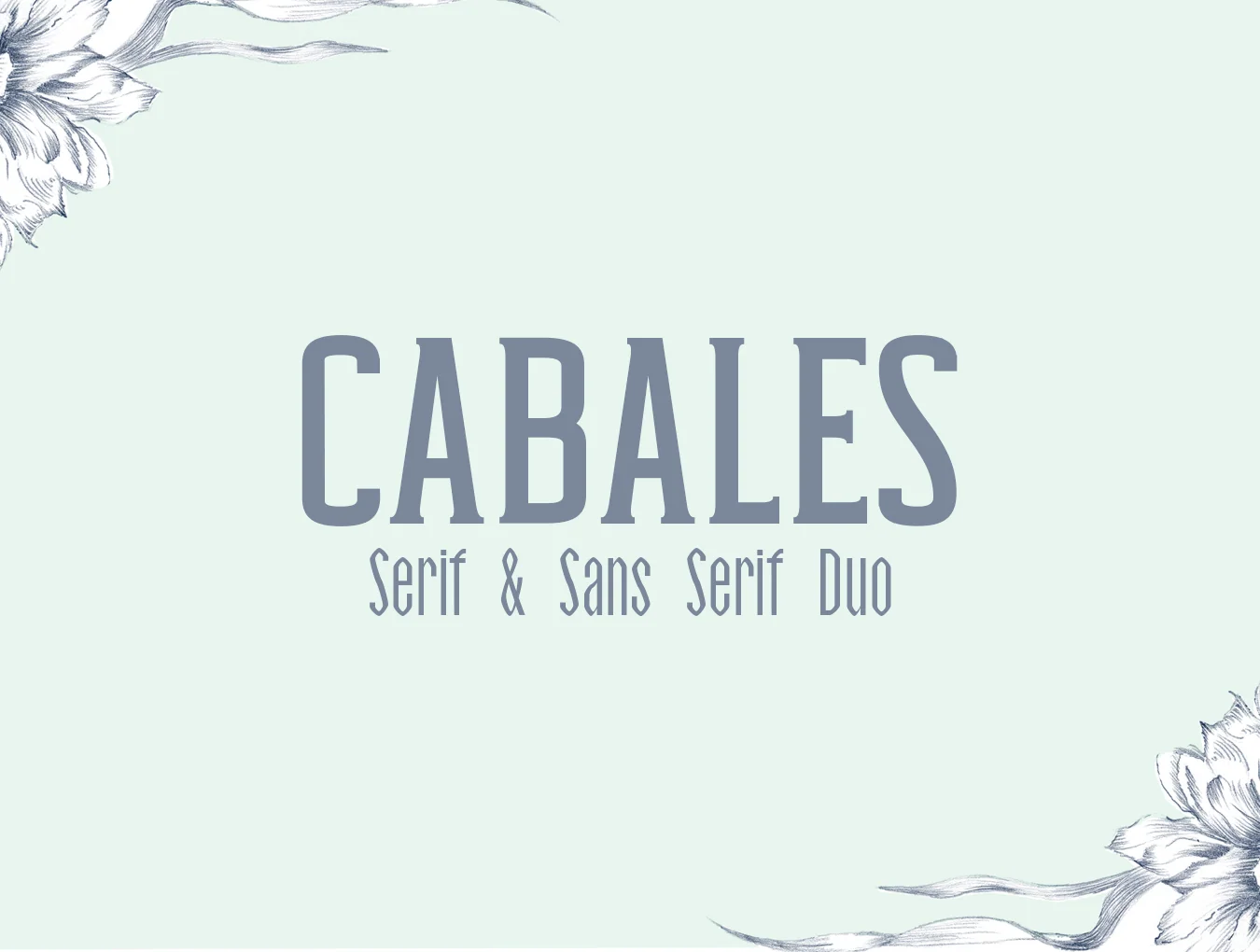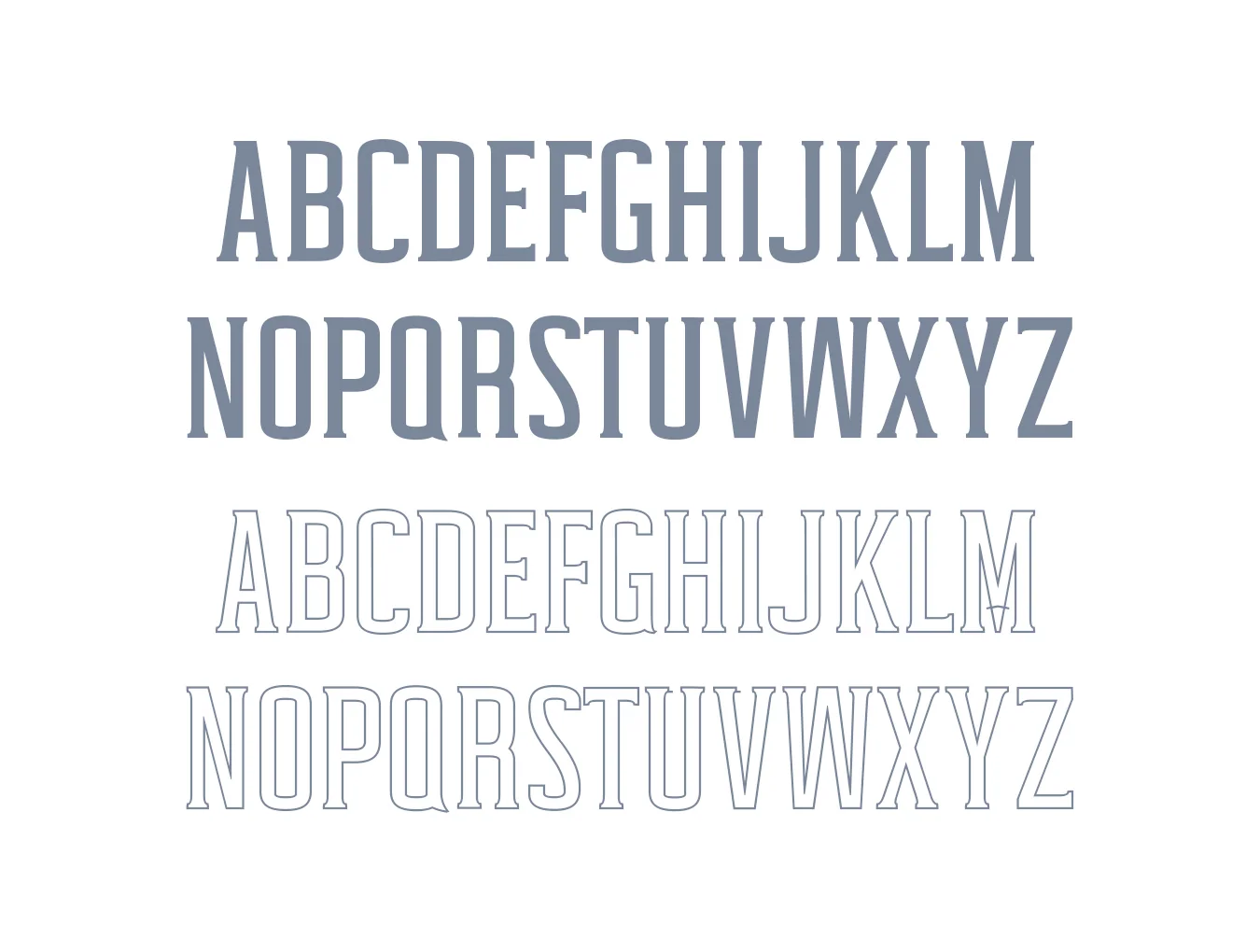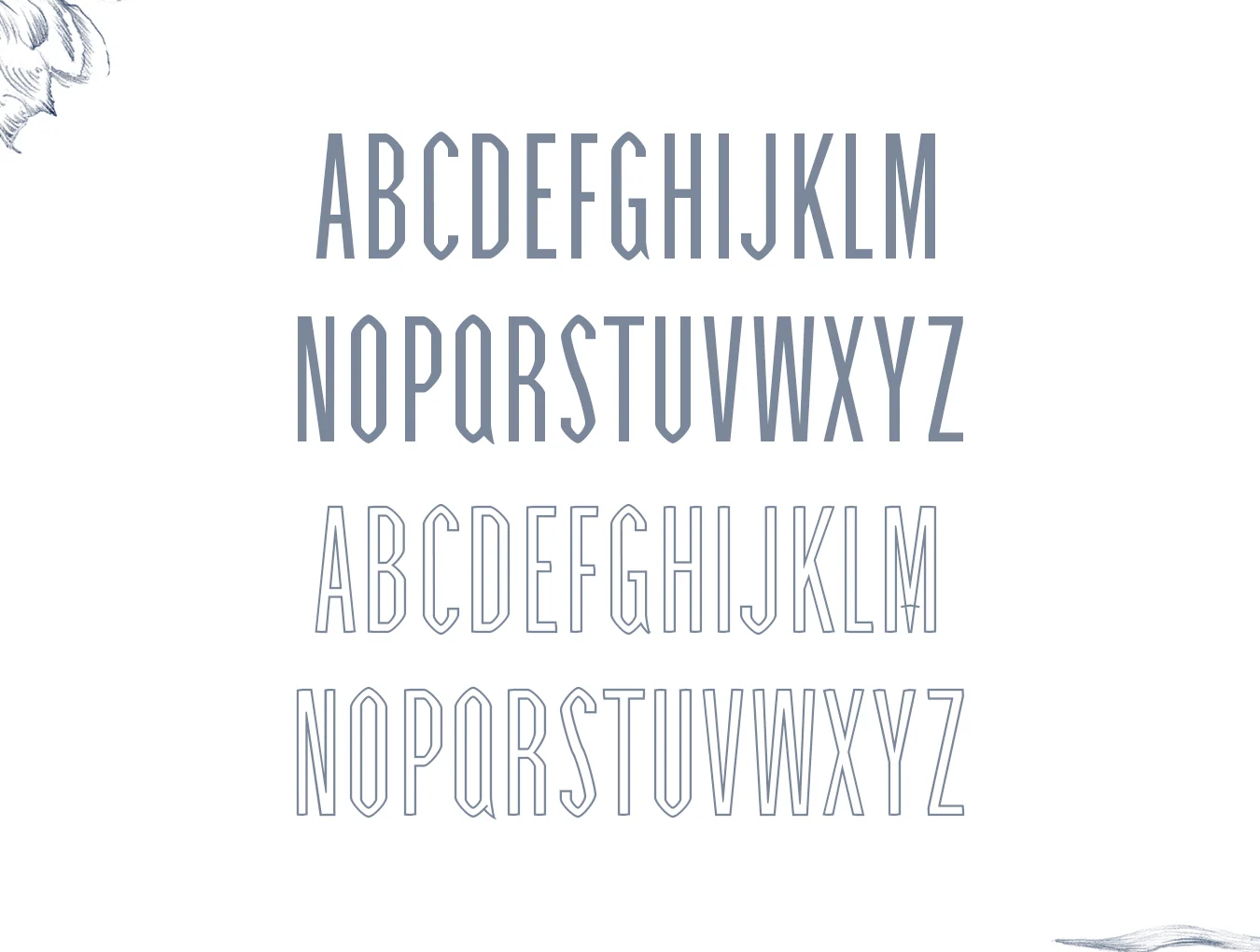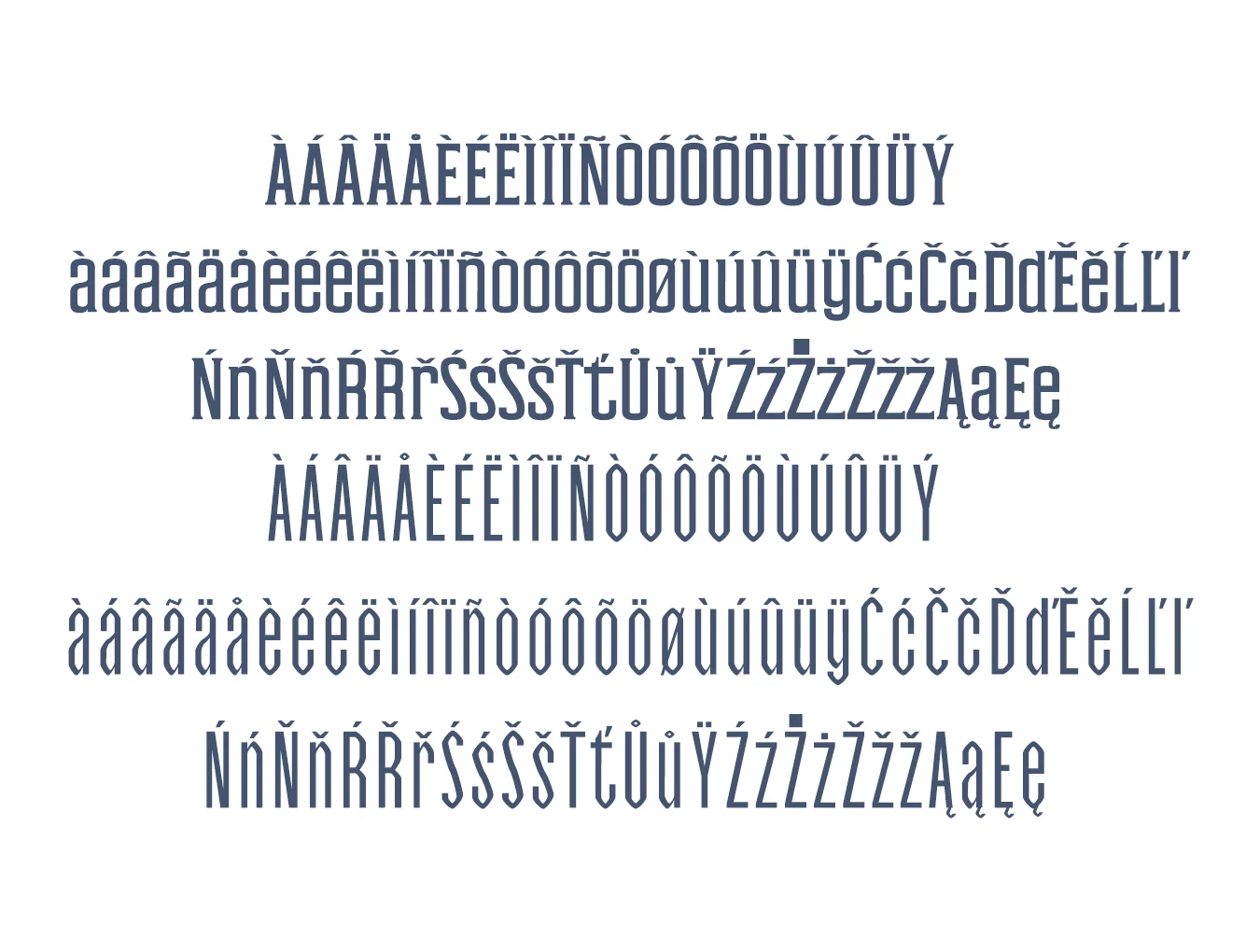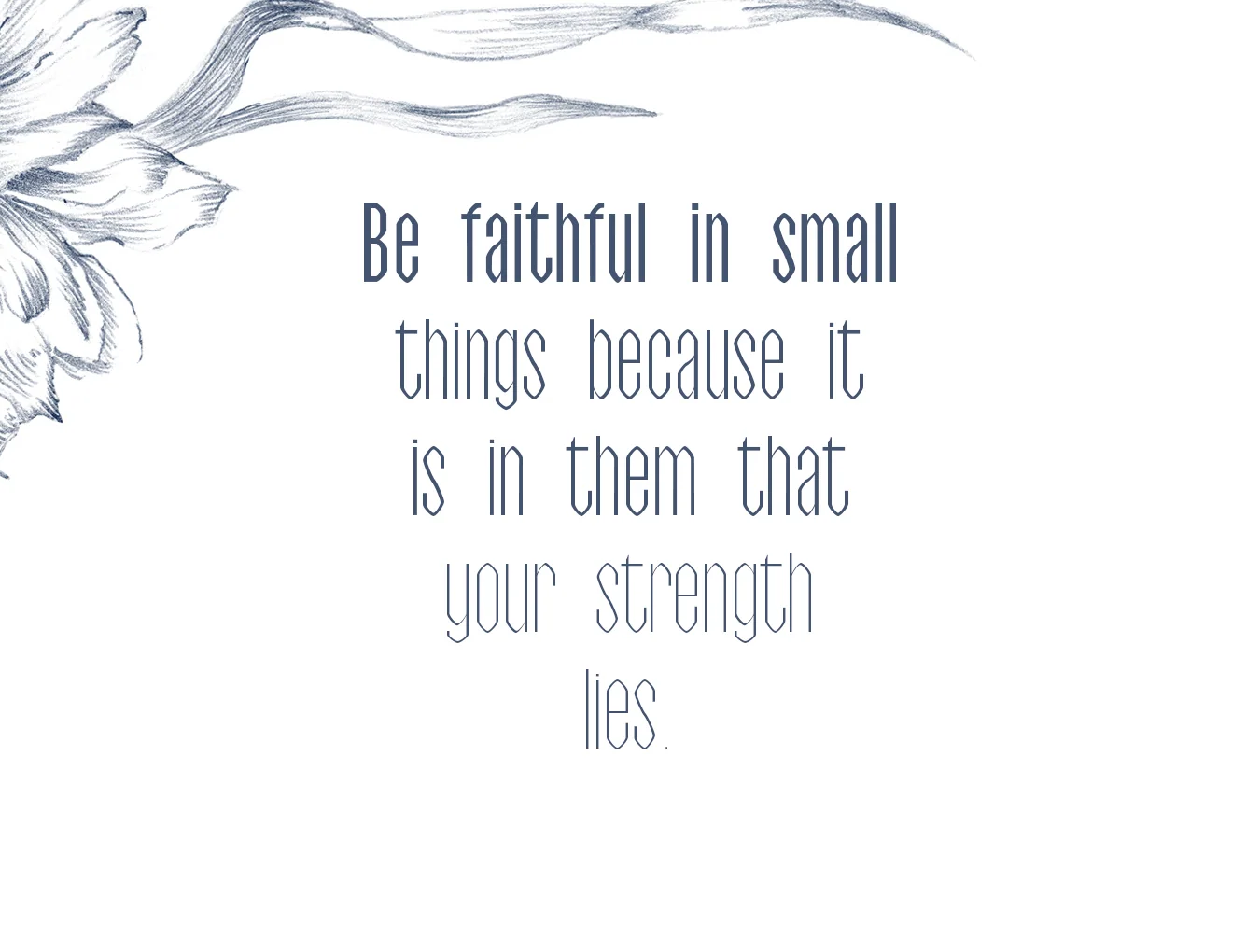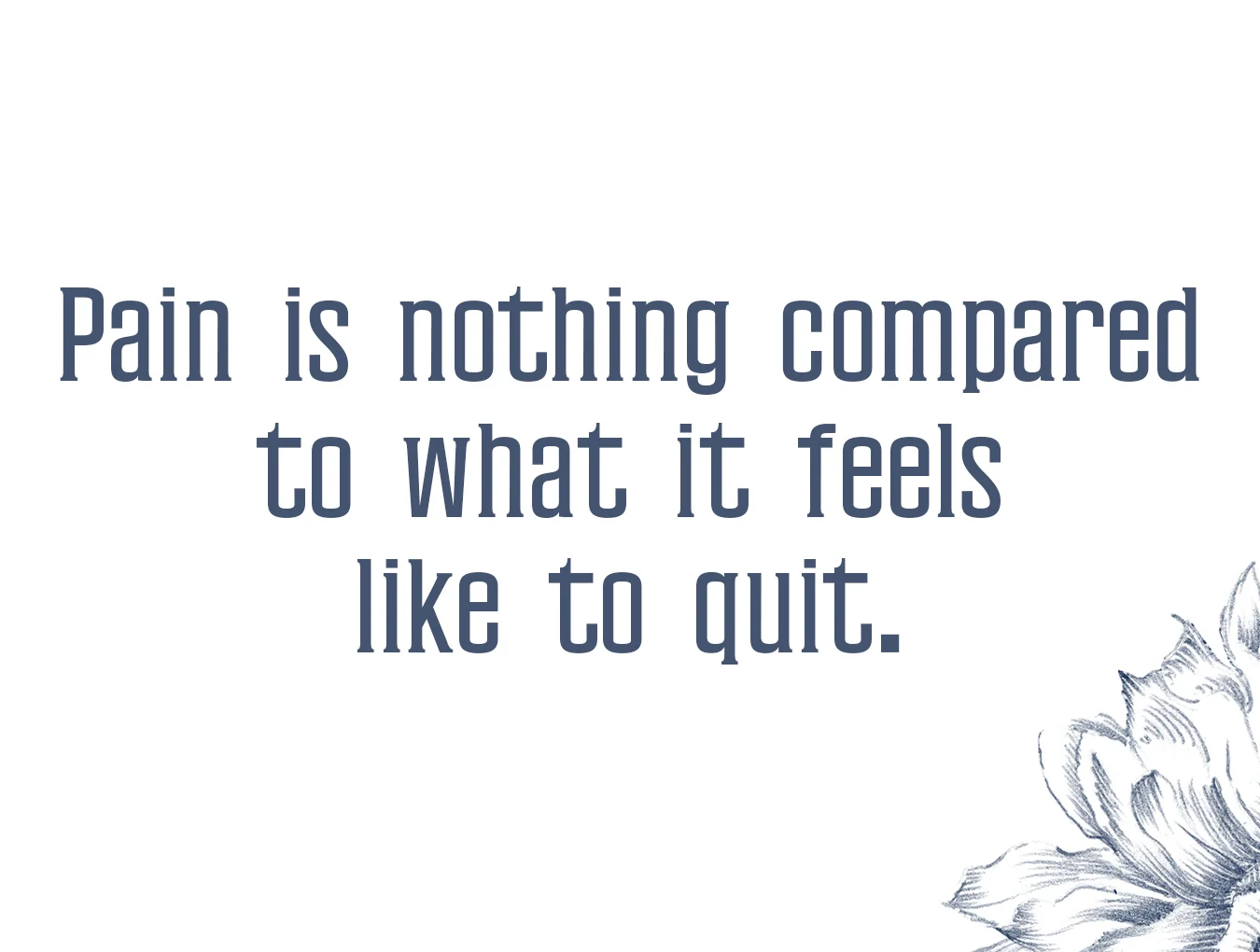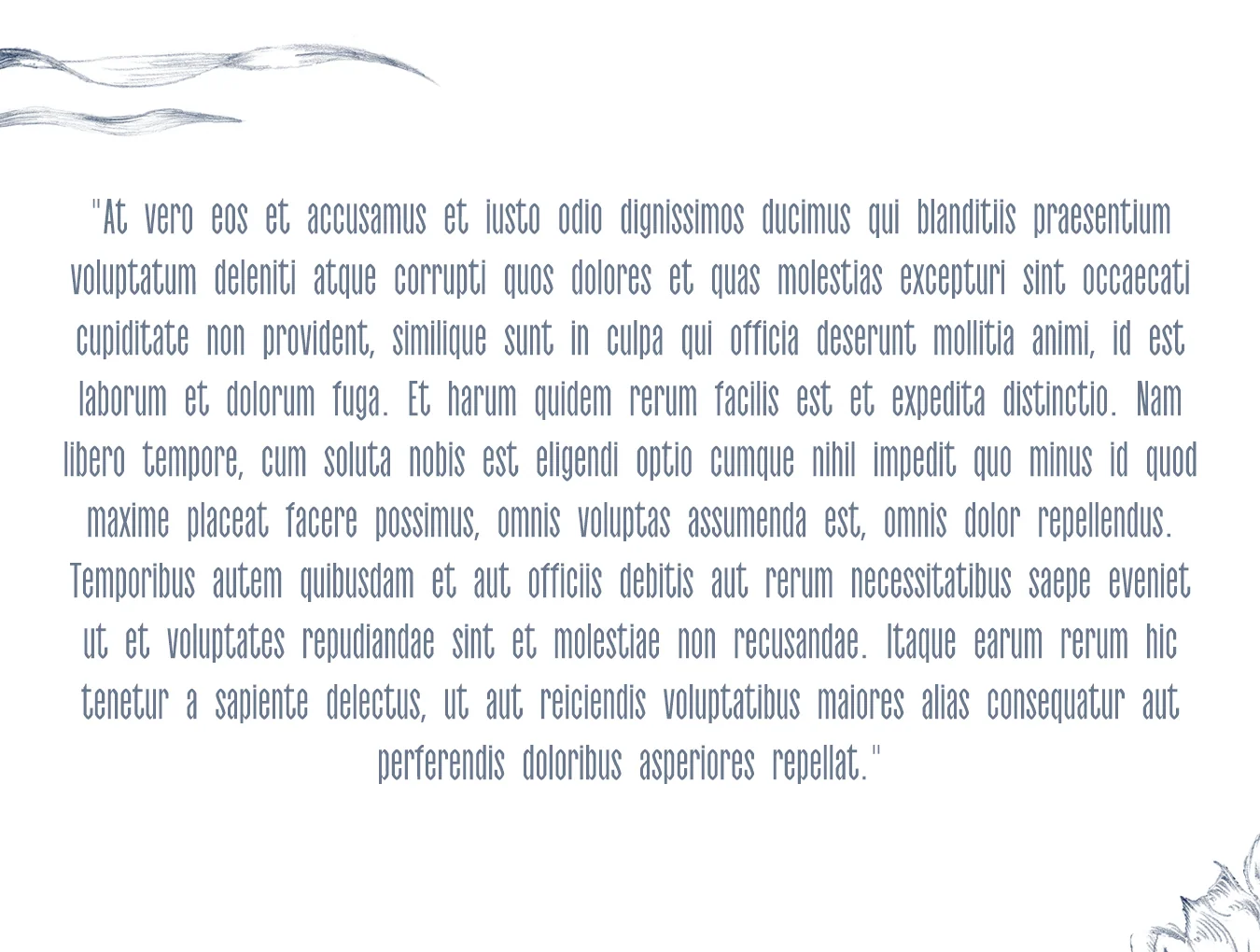
Cabales Duo Font
Serif and sans-serif font styles
Cabales: Regular, Light, Outline and Bold
Daania: Regular, Light, Thin and Outline
Cabales Duo Font pairs sans serif and serif styles with upper/lowercase letters, numbers, and varied punctuation. Use all caps with generous spacing for an elegant feel, or mix cases for a timeless look. Great for quotes, branding, logos, merch, social posts, displays, headers, invitations, save-the-dates, weddings, titles, and packaging.